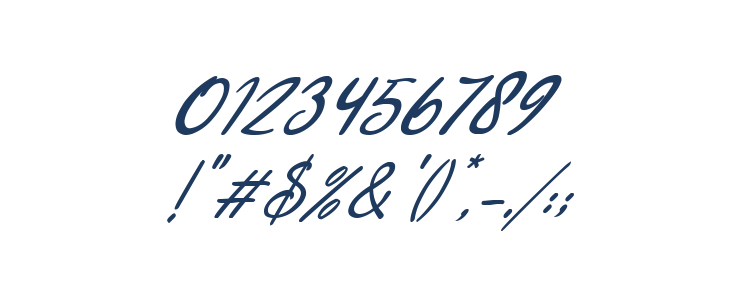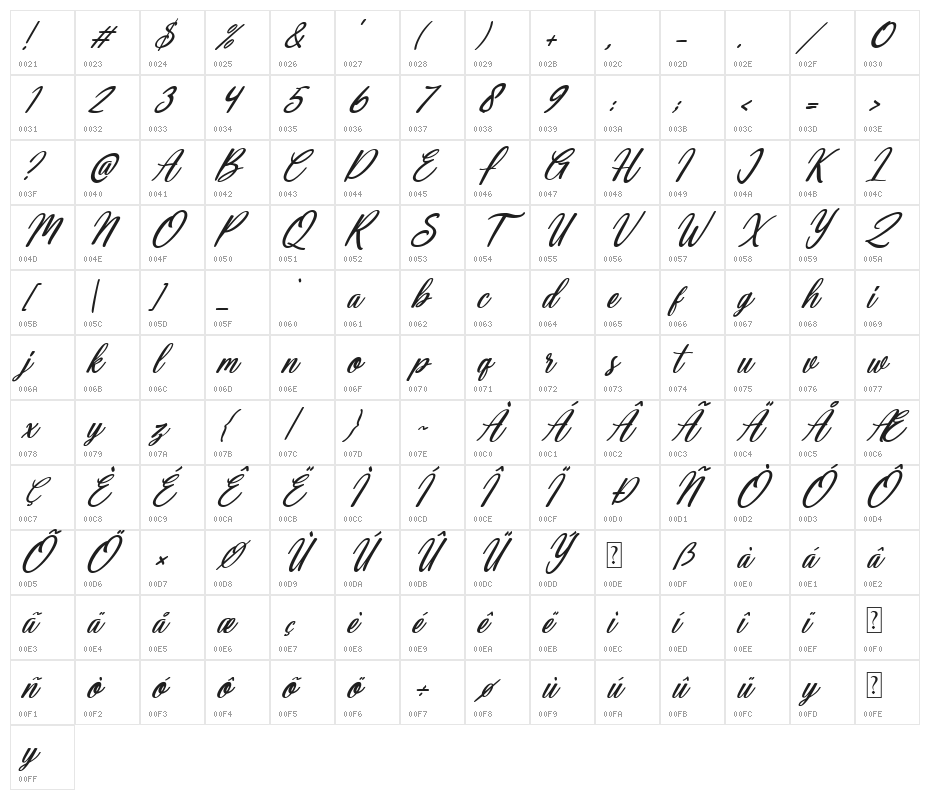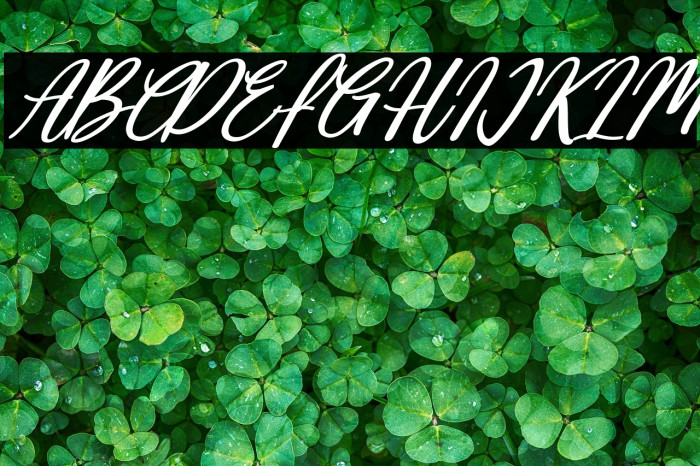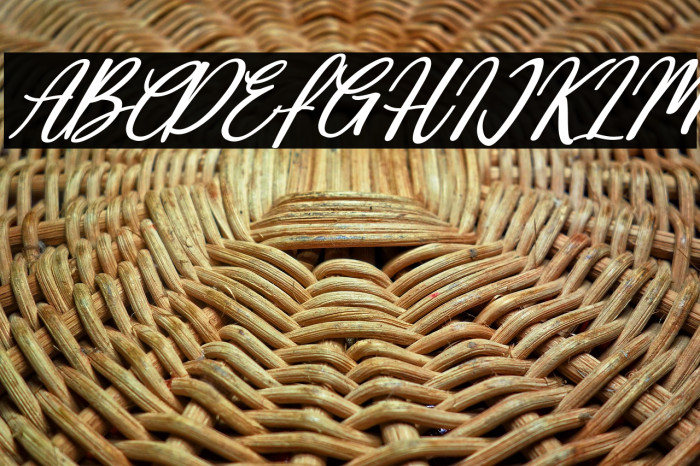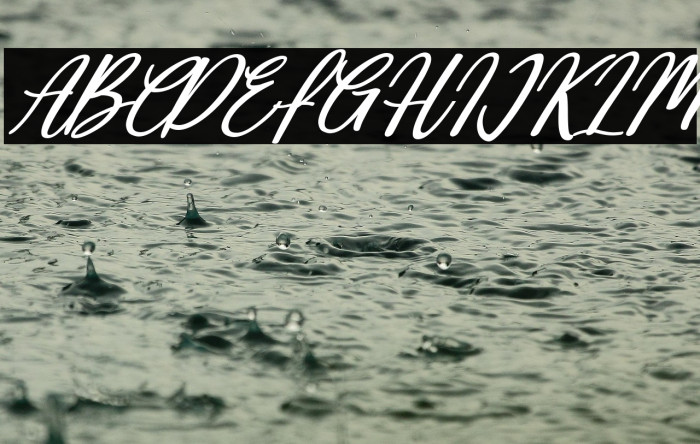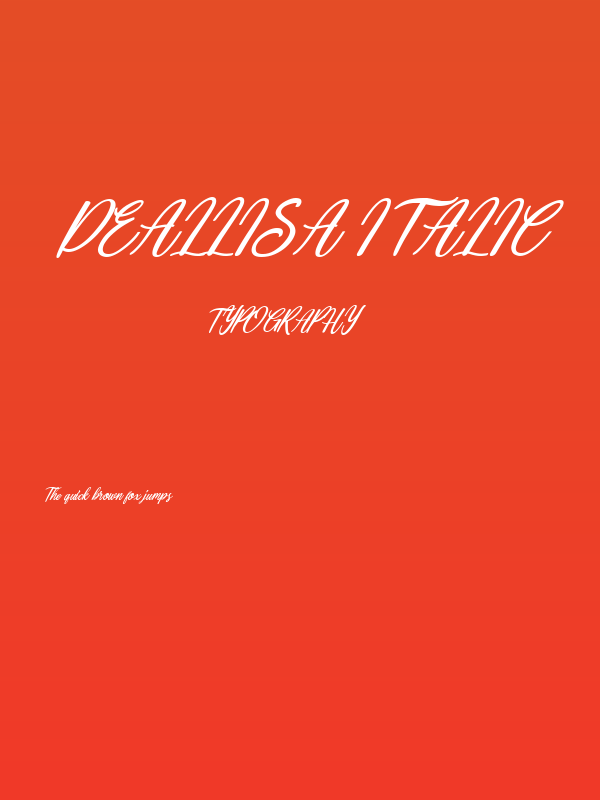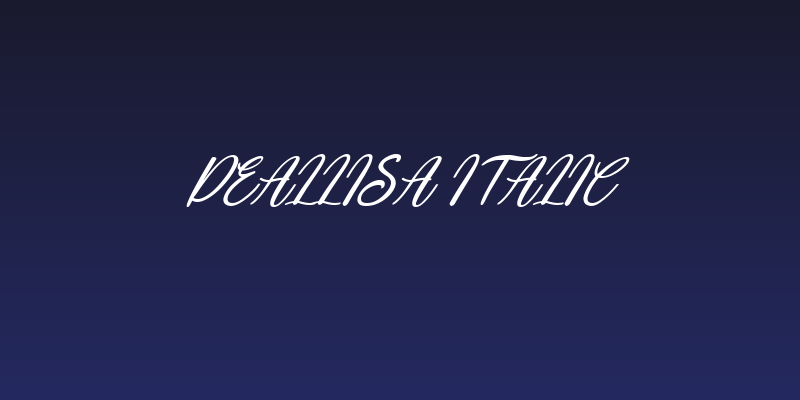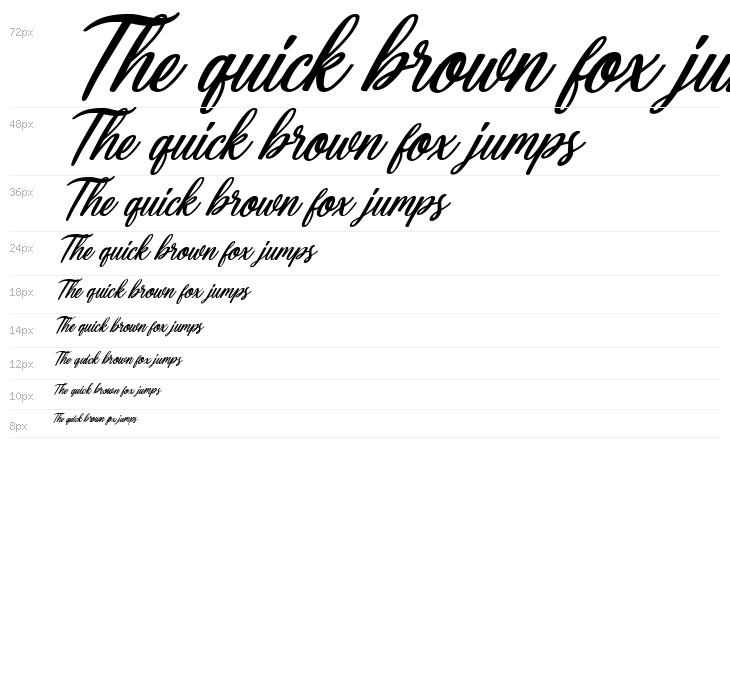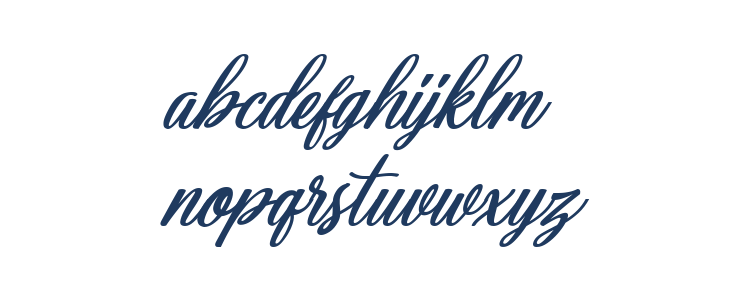
Deallisa Italic Font
Deallisa Italic Description
This font exudes a dynamic and flowing style, characterized by its cursive, italicized form. The letters are interconnected, creating a seamless and elegant script that mimics the fluidity of handwriting. The strokes are bold and confident, with a consistent thickness that adds to its legibility and impact. The uppercase letters maintain a graceful yet assertive presence, while the lowercase letters are more compact, enhancing the overall cohesiveness of the typeface. The numerals and special characters are designed to match the script's fluidity, ensuring a harmonious appearance across all text elements.